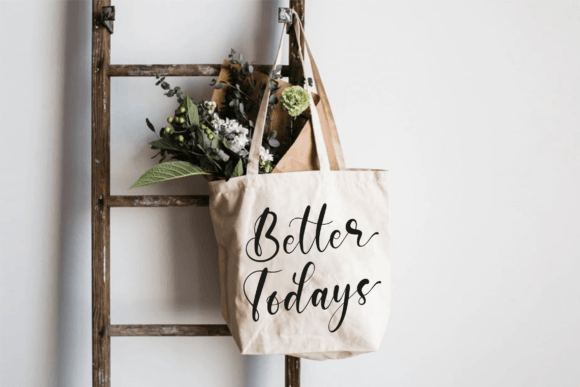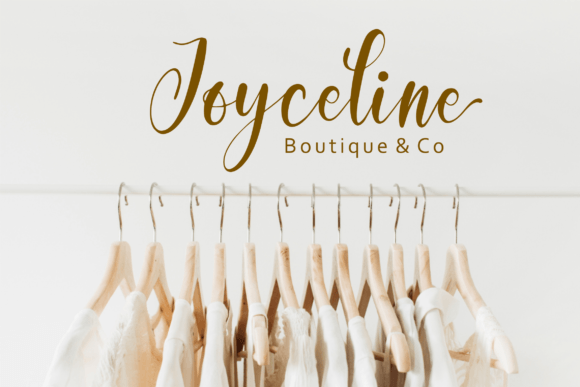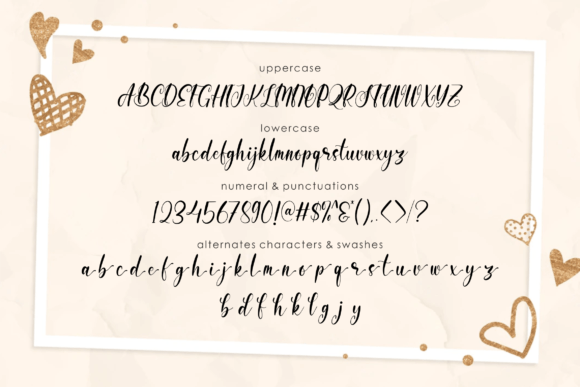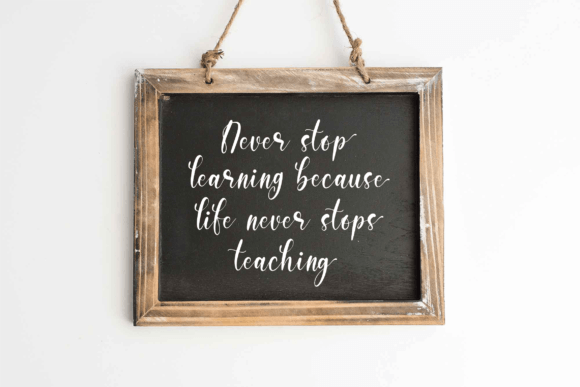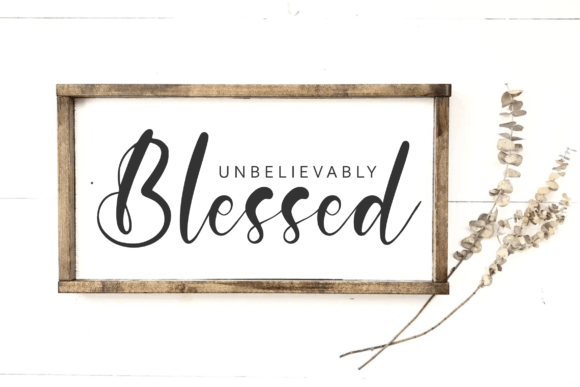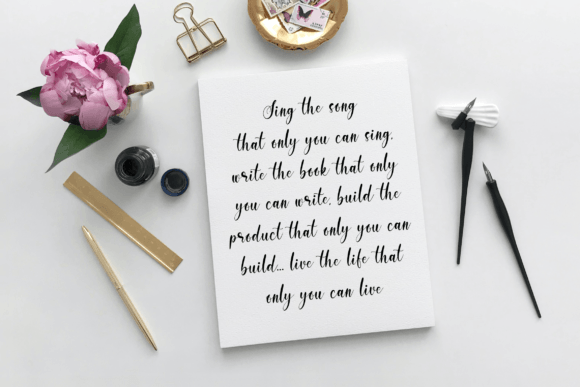
Introduction to Silkyhearts Font
Have you ever been brainstorming ideas for your latest creative project, only to be struck by the perfect phrase that needs a special font to match its elegance? That’s exactly what happened to many designers when they stumbled upon the stunning Silkyhearts Font. This beautiful script font is a game-changer for any design project, offering a touch of sophistication and modernity that’s hard to find in other fonts.
Whether you’re working on a product packaging design, a branding project, or even a wedding invitation, Silkyhearts Font is the perfect design resource to elevate your work. With its PUA encoded feature, you can access all the amazing glyphs and ligatures with ease, making it a valuable addition to your design toolkit.
Key Features of Silkyhearts Font
- High-quality, elegant design ideal for creative projects requiring a touch of sophistication.
- Unique, cursive script style that adds a touch of whimsy and romance to any design project.
- Perfect for use in wedding invitations, greeting cards, and other creative projects where a delicate, feminine touch is desired.
Honest Review: Silkyhearts Font
As a designer, I’m always on the lookout for high-quality fonts that can elevate my creative projects. I recently had the chance to work with the Silkyhearts Font, and I’m excited to share my honest review with you.
- Perfect for romantic or whimsical projects
Tips for Getting the Most Out of Silkyhearts Font
The Silkyhearts Font is ideal for creative projects, such as wedding invitations, party invitations, and social media graphics. It’s also a great design resource for creating high-quality documents, presentations, and websites.